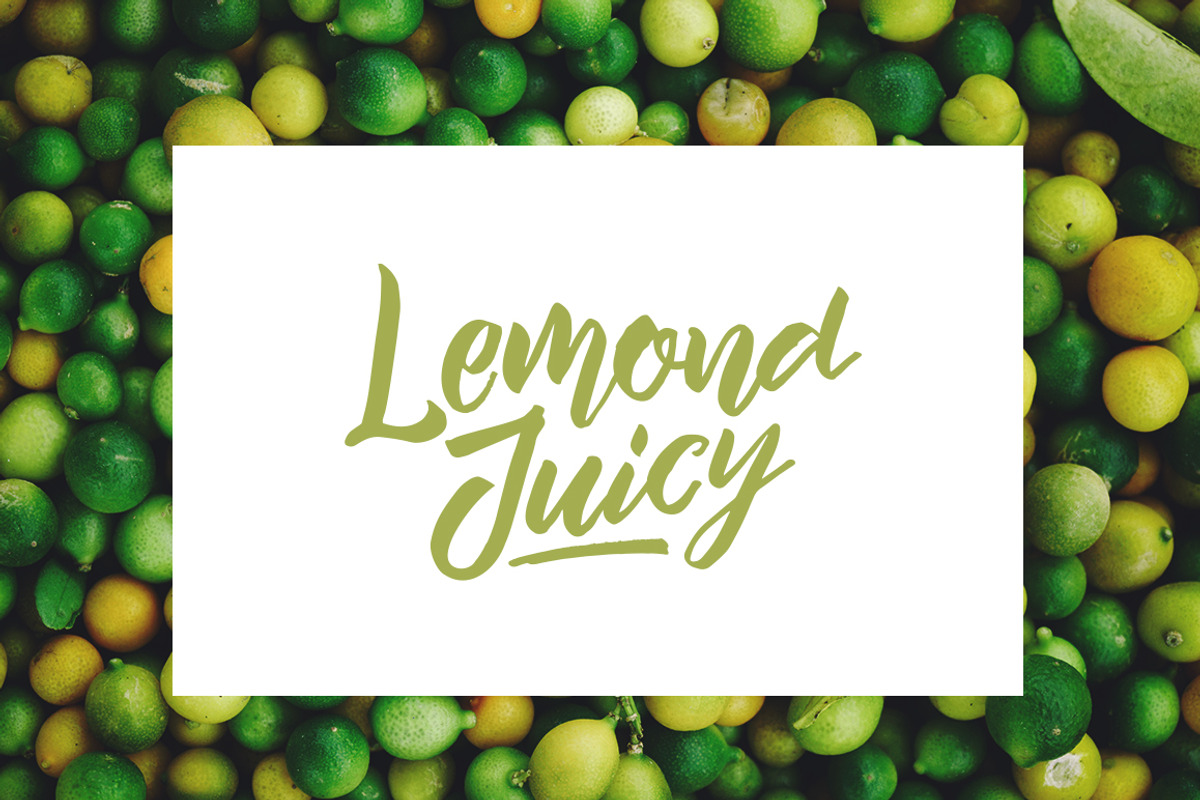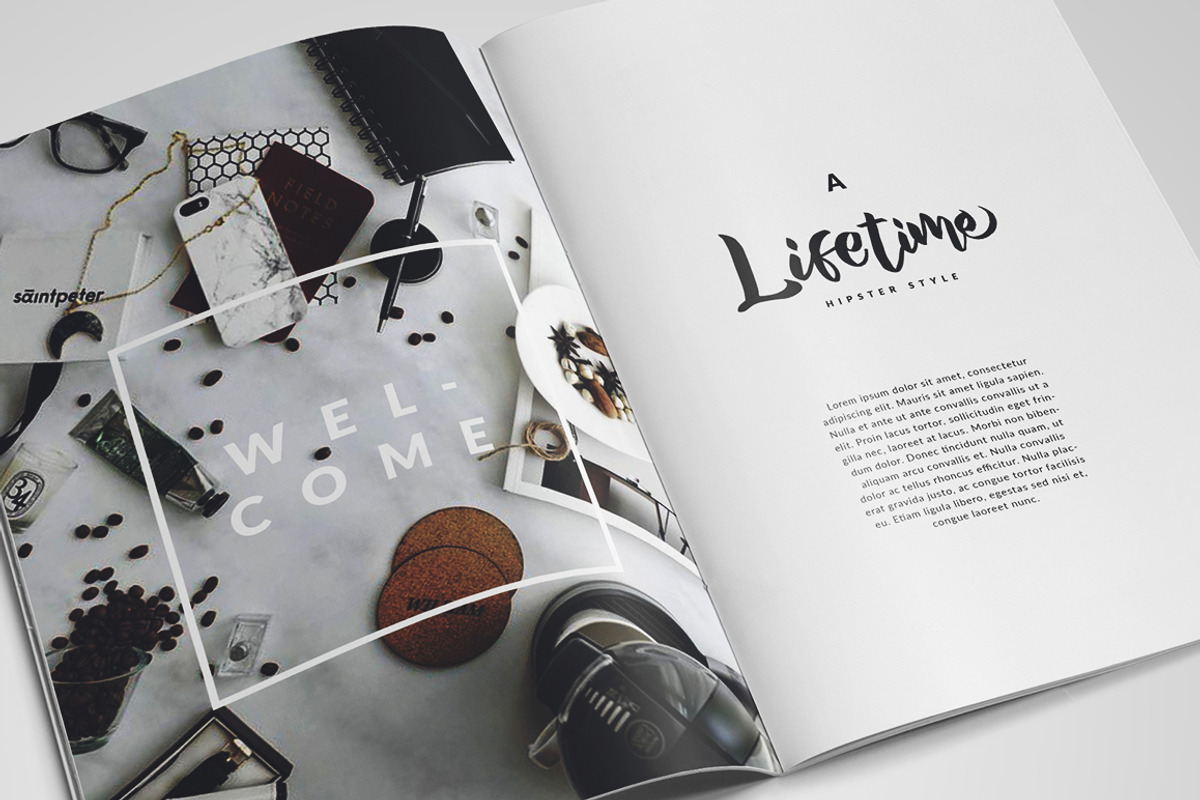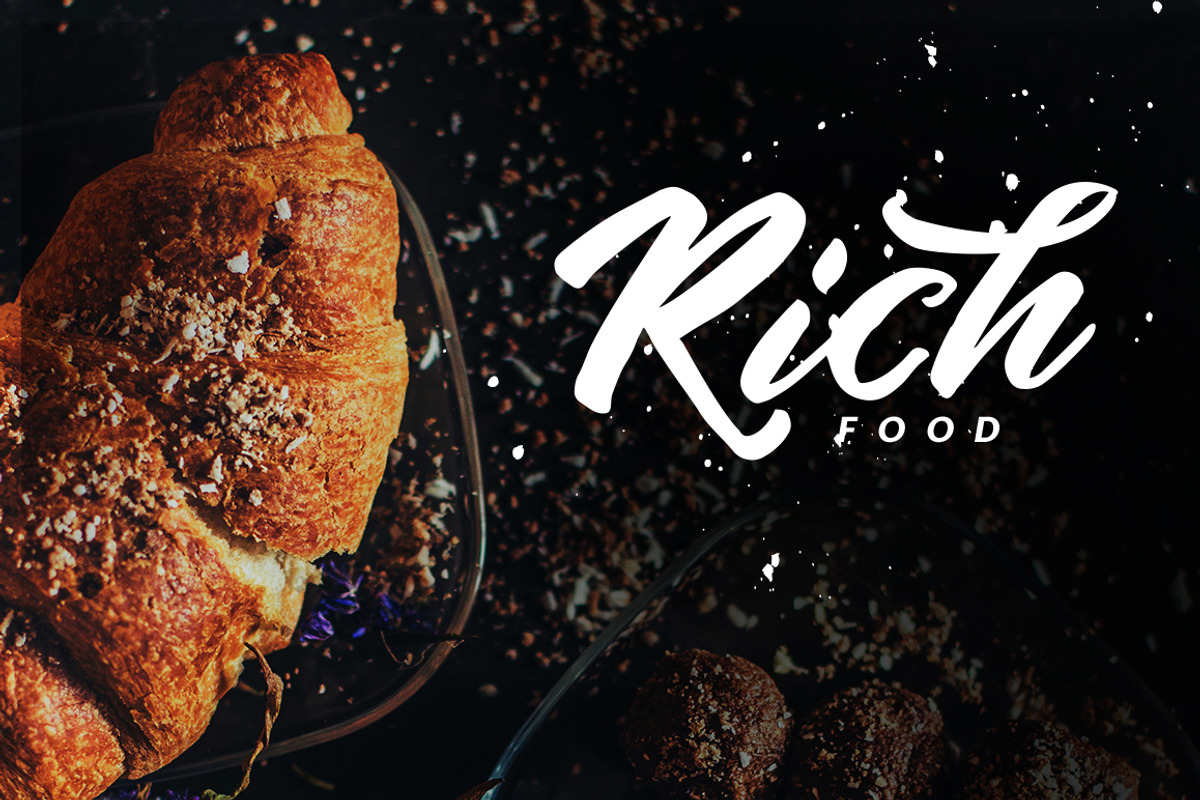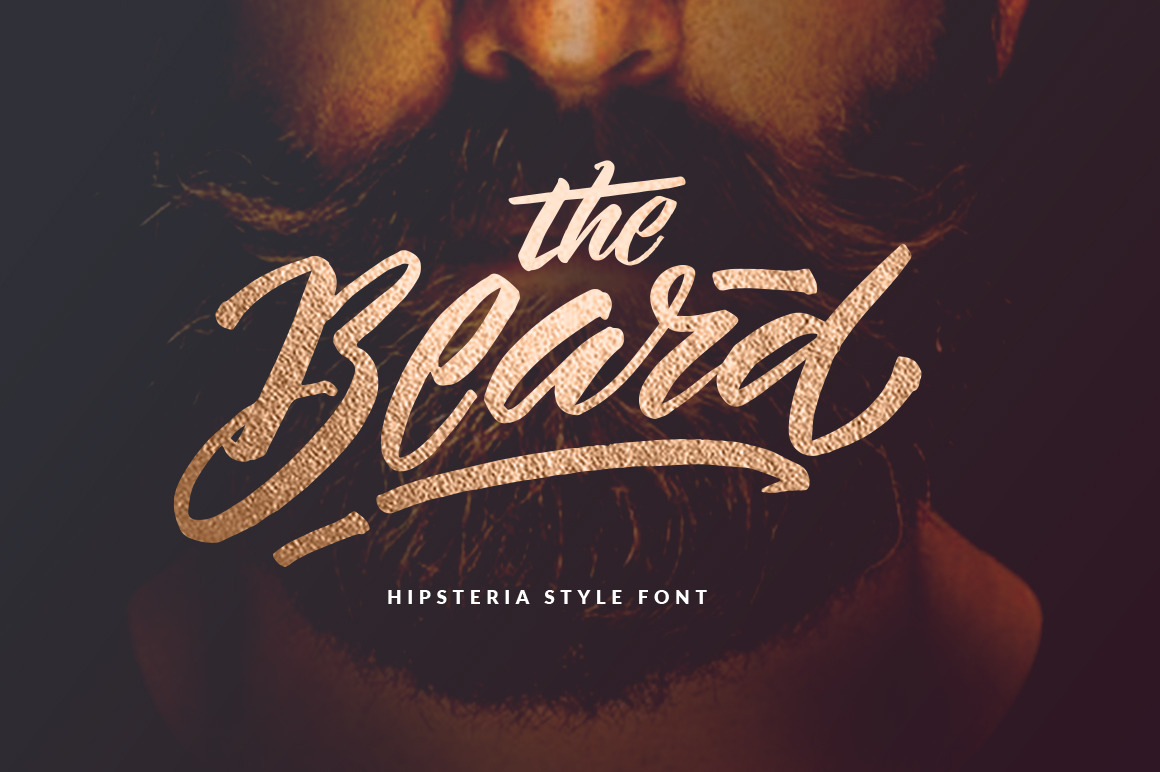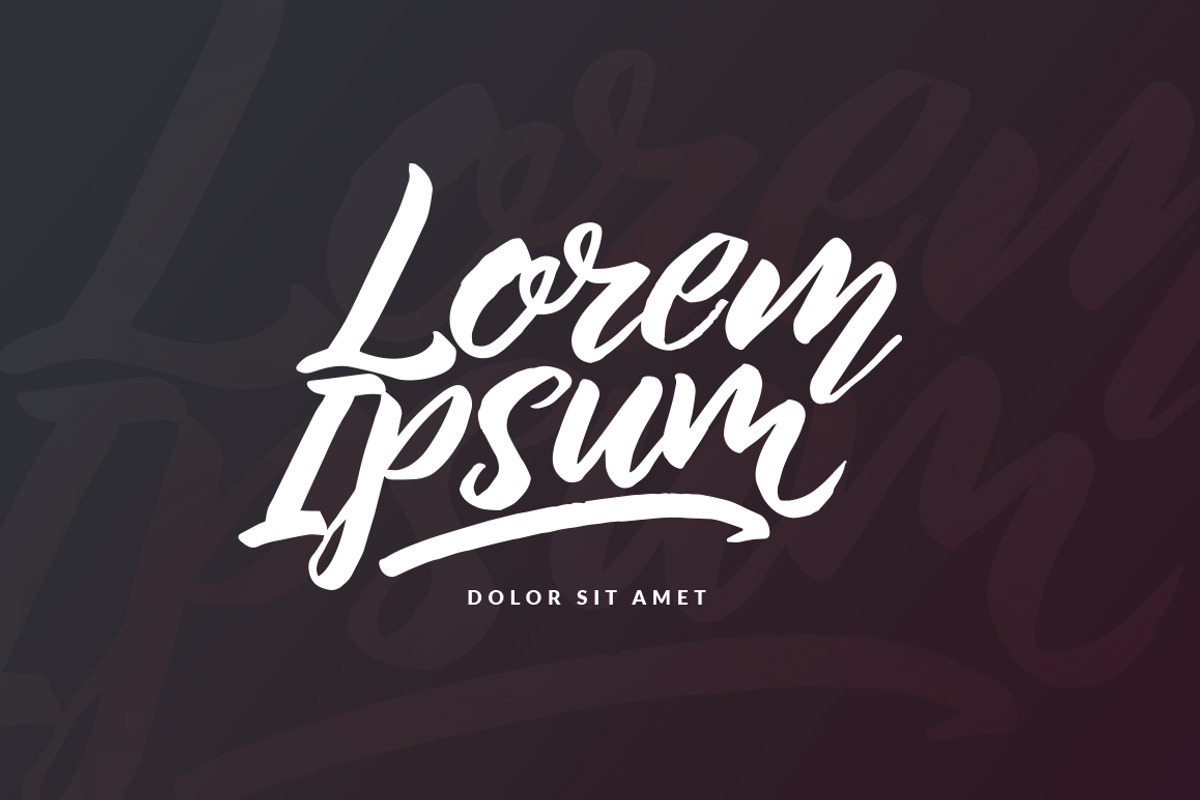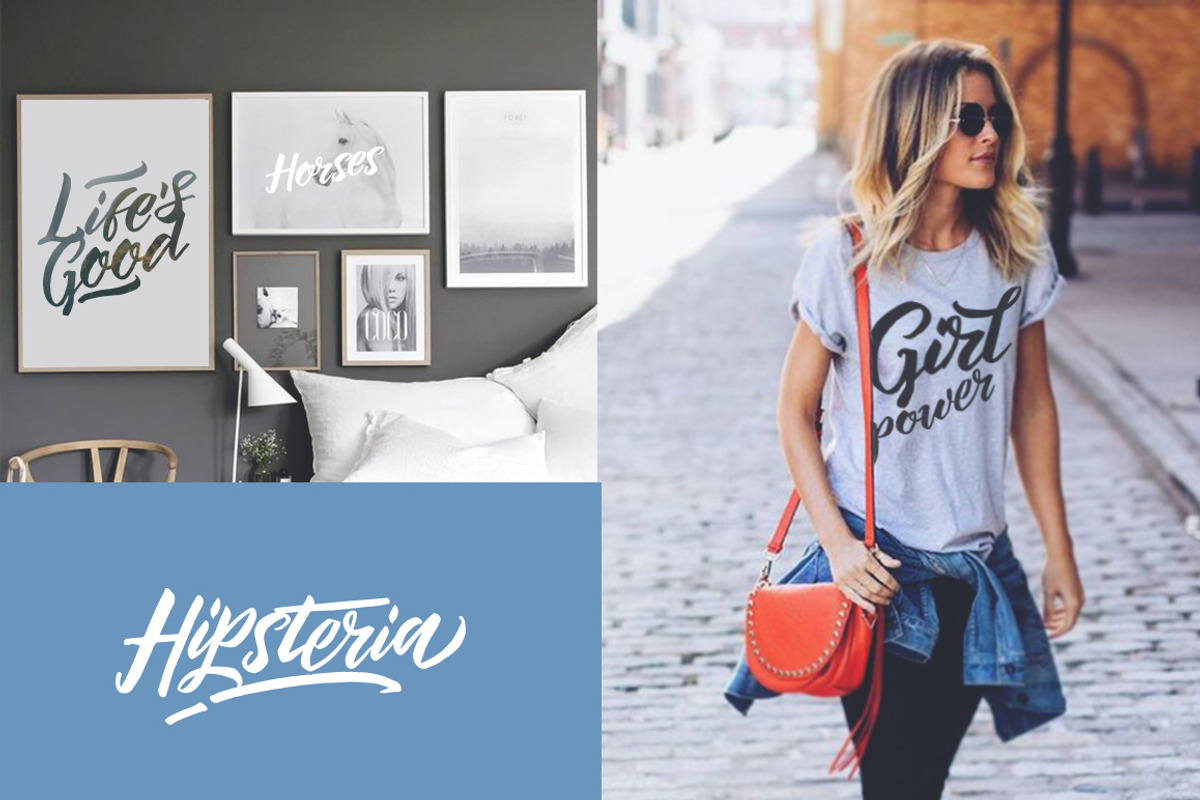
The Beard - Branded Typeface +Extras
The Beard is a Hipsteria Style font, designed to combine perfectly and allow you to create stunning hand lettering quickly and easily, plus super handy set of bonus Swash. Ideal for logos, handwritten quotes, product packaging, header, poster, merchandise, social media & greeting cards.
- Stylistic Set
- 470 More Glyphs
- Latin Pro Support Character